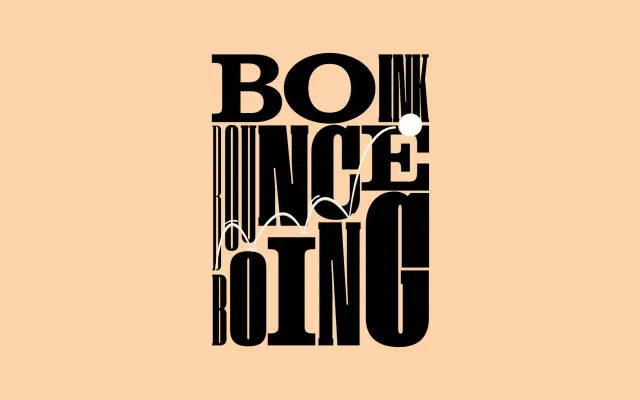
F37 Elastica Serif
F37 Foundry · Ryan Williamson, Rick Banks · 2025
A bracketed slab serif with ball terminals, sibling to Elastica Sans across eight widths from Expanded to Ultra Compressed.
A bracketed slab serif by Ryan Williamson and Rick Banks, sister to F37 Elastica Sans on a shared skeleton. Single weight across eight widths from Expanded through Regular down to Ultra Compressed. Moderate contrast and indulgent ball terminals add a more sophisticated voice than the utilitarian sans, and the narrower widths push how compressed a serif can get while still holding texture. Small caps, ligatures and stylistic alternates included. Designed to be used interchangeably with Elastica Sans within a single composition.
F37 describes Elastica Serif as a bracketed slab serif with moderate contrast and indulgent ball terminals, drawn on the same skeleton as Elastica Sans, with eight widths from Expanded to Ultra Compressed and OpenType features including small caps, ligatures and stylistic alternates.